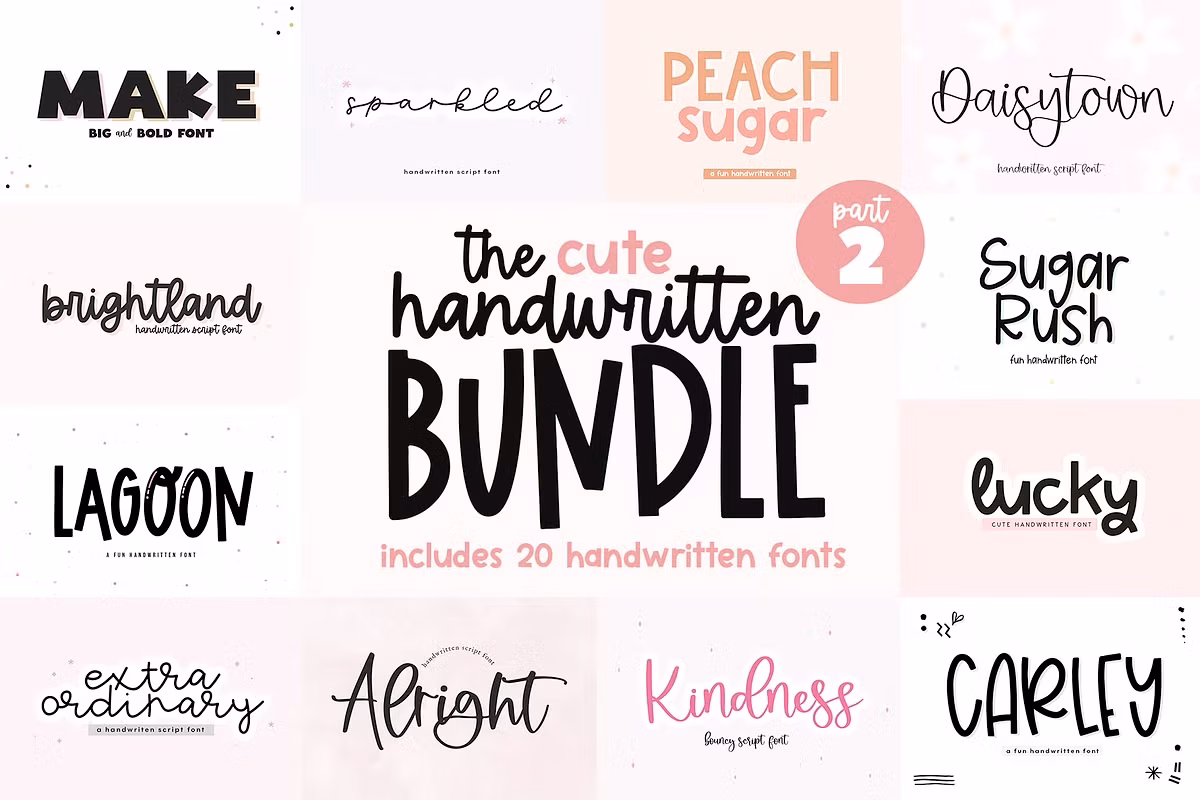
Cute Handwritten Font Bundle | Vol 2 Free Download is a delightful collection of playful, heartwarming fonts that bring personality and charm to every project. Please note: you must purchase this font for commercial use, but you can test it through a free download. Featuring a variety of unique handwritten styles, this bundle is perfect for planners, greeting cards, social media posts, kids’ designs, DIY crafts, and branding with a friendly vibe.
Each font in the bundle offers its own quirky touch—some bubbly, some neat, all irresistibly cute. Whether you're designing fun labels or cheerful quotes, Cute Handwritten Font Bundle | Vol 2 Free Download gives you the creative freedom to mix and match with ease. Fully compatible with Adobe Illustrator, Photoshop, Canva, and more. Download it today for personal use and fill your next project with joy, charm, and hand-drawn goodness.